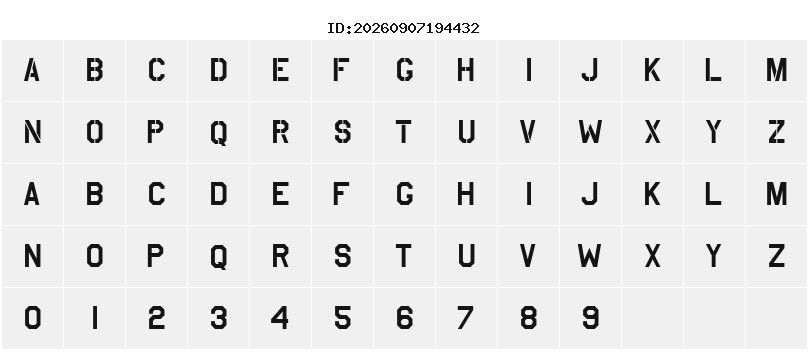
• Font Name: USAAF_Stencil
• Font Style: USAAF_Stencil
• Full Font Name: USAAF_Stencil
• PostScript Name: USAAF_Stencil
• Character Count: 110
• Designer: 4thFG_TwoGuns
• Manufacturer: 4thFG_TwoGuns
About USAAF_Stencil.ttf
USAAF_Stencil.ttf is a modern, elegant sans-serif font designed for ultimate readability and visual harmony. Perfect for branding, headlines, web design, and print materials.